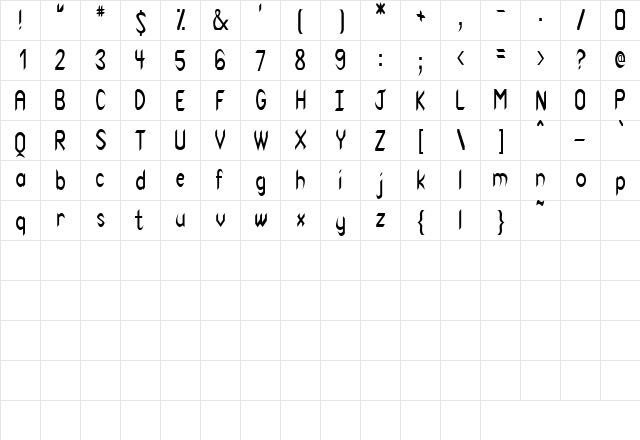
VenomCondensed Regular
Design Context for VenomCondensed Typeface
VenomCondensed offers clean, dependable letterforms without strong stylistic allegiance, making it a practical choice for designers who need flexibility. Its narrow stance lets it pack a punch even in space-constrained designs.